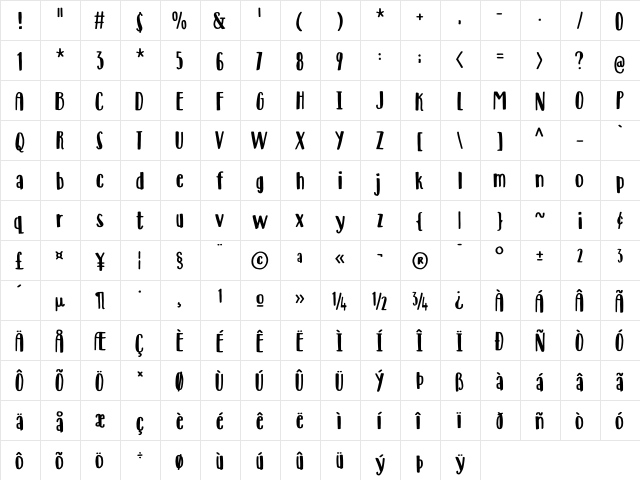
Deliberately DEMO Regular
Design Context for Deliberately DEMO Typeface
Deliberately DEMO is a composed and adaptable typeface that performs quietly and consistently across a wide range of design contexts.